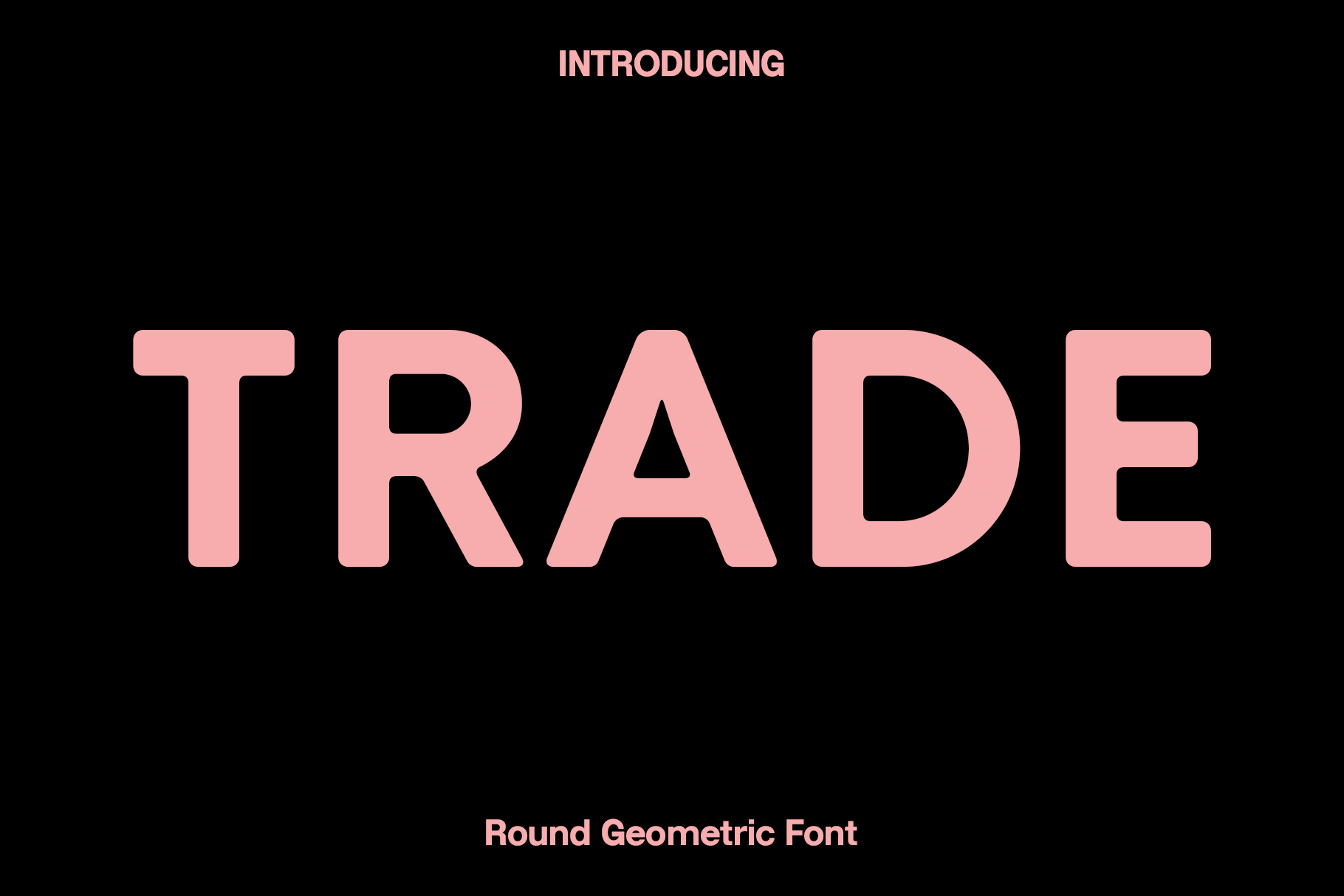
Trade - Round Geometric Font
Trade is a clean and contemporary sans serif font that combines modern geometric construction with smooth, rounded edges. Its balanced proportions and simple forms create a polished visual style that feels both approachable and professional. Designed with clarity and versatility in mind, Trade works beautifully when you need modern typography with a subtle geometric personality.
With its clean uppercase letterforms and carefully crafted shapes, Trade is an excellent choice for logos, branding, headlines, posters, packaging, editorial designs, advertising, signage, websites, social media graphics, and modern visual identities. The rounded edges soften its geometric structure, giving the font a friendly yet sophisticated appearance that adapts easily to different design styles.
Trade is particularly effective for contemporary brands, technology projects, lifestyle products, corporate identities, fashion graphics, and minimalist compositions. Its multilingual support also makes it suitable for projects targeting a wider international audience, while the included numbers and punctuation provide everything needed for practical everyday design work.
Trade Font Features:
Modern sans serif style
Geometric construction
Smooth rounded edges
Clean and contemporary appearance
Uppercase only
Numbers and punctuation
Suitable for branding, logos, posters, packaging, editorial design, advertising, websites, and more